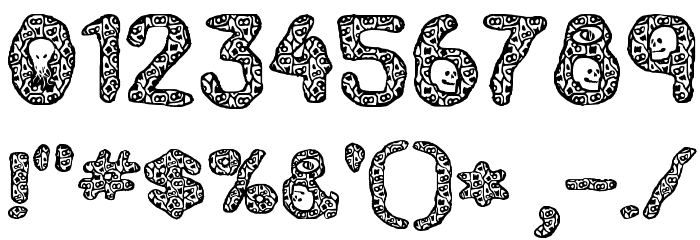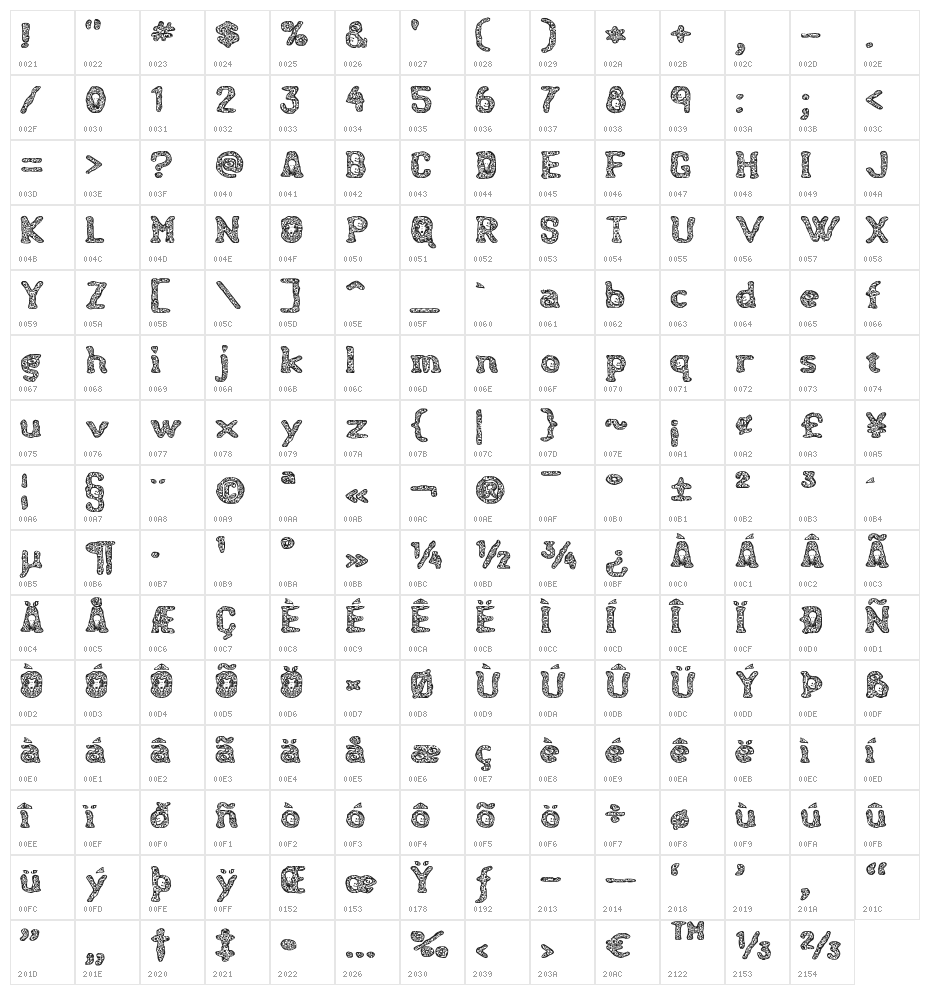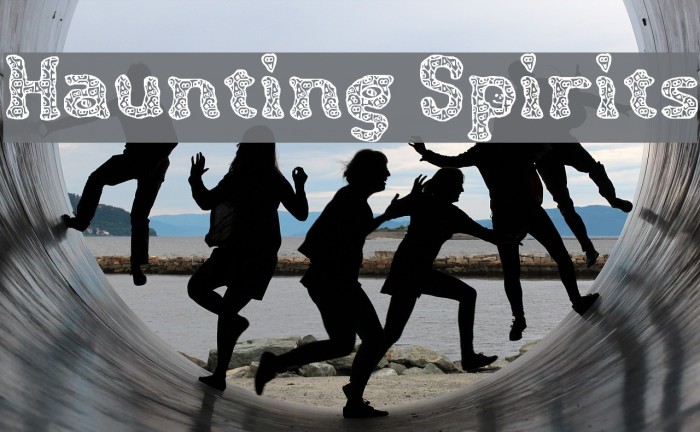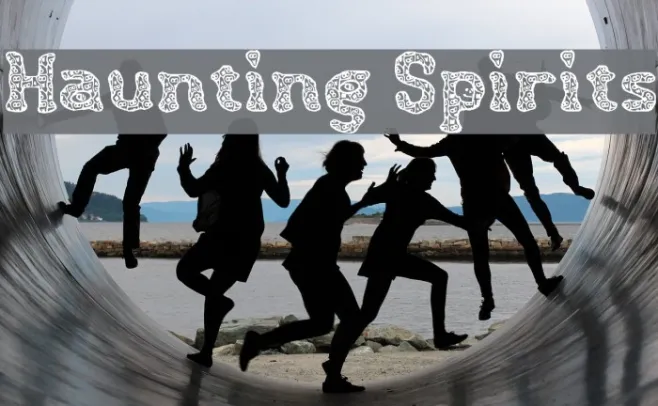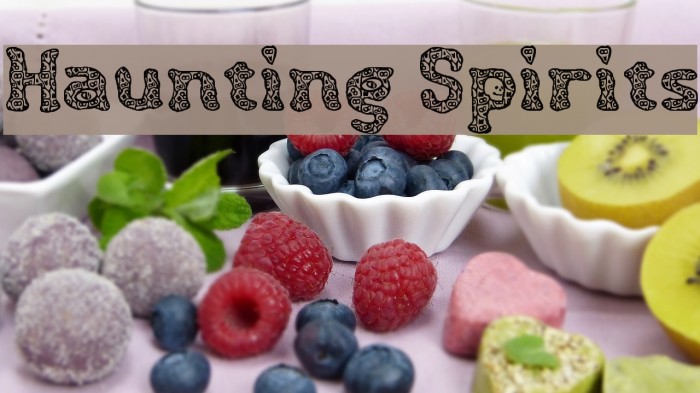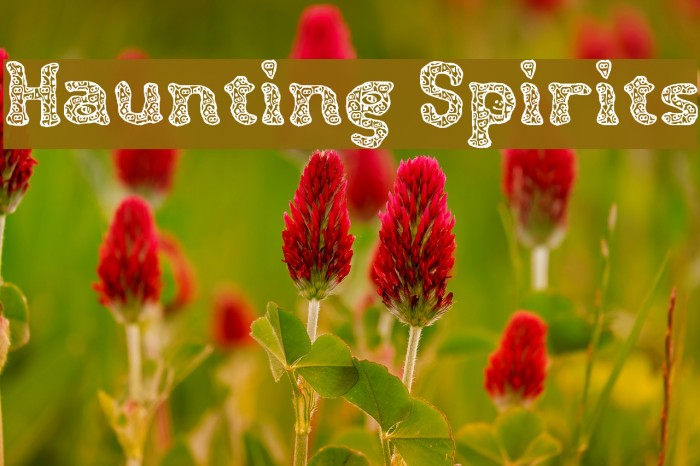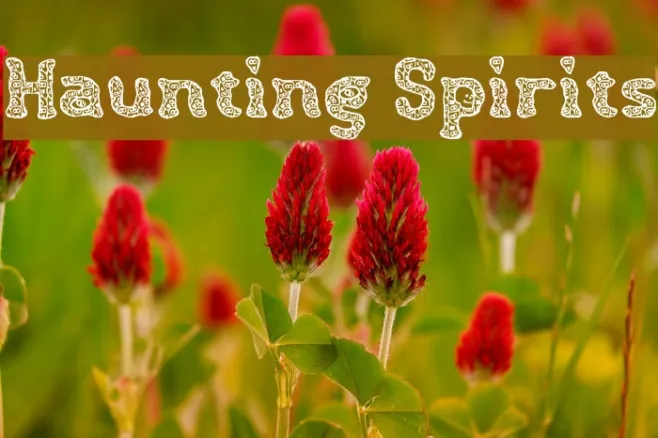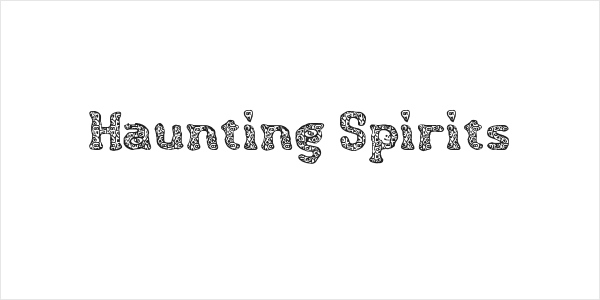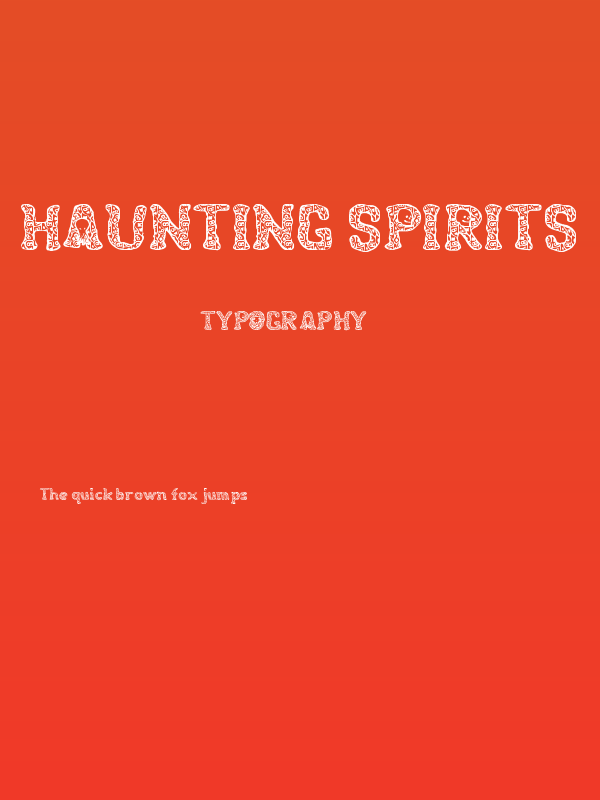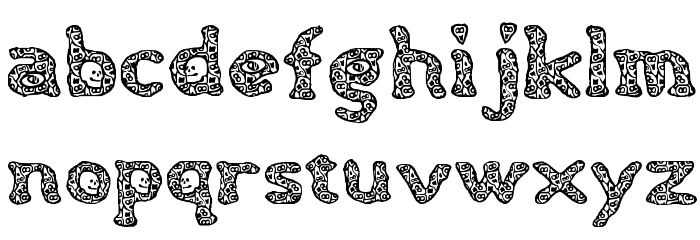
Haunting Spirits Font
Haunting Spirits Description
This font features a playful and spooky design, with each character filled with intricate patterns resembling ghostly faces and swirling shapes. The letters are bold and have a hand-drawn appearance, giving them a unique and whimsical style. The overall look is decorative and eye-catching, making it perfect for themed projects that require a touch of the eerie or supernatural. The characters are well-defined, with a consistent style throughout the uppercase, lowercase, numerals, and special symbols.
| Proposed Projects | Ideal for Halloween-themed designs, party invitations, horror movie posters, and children's book covers. |